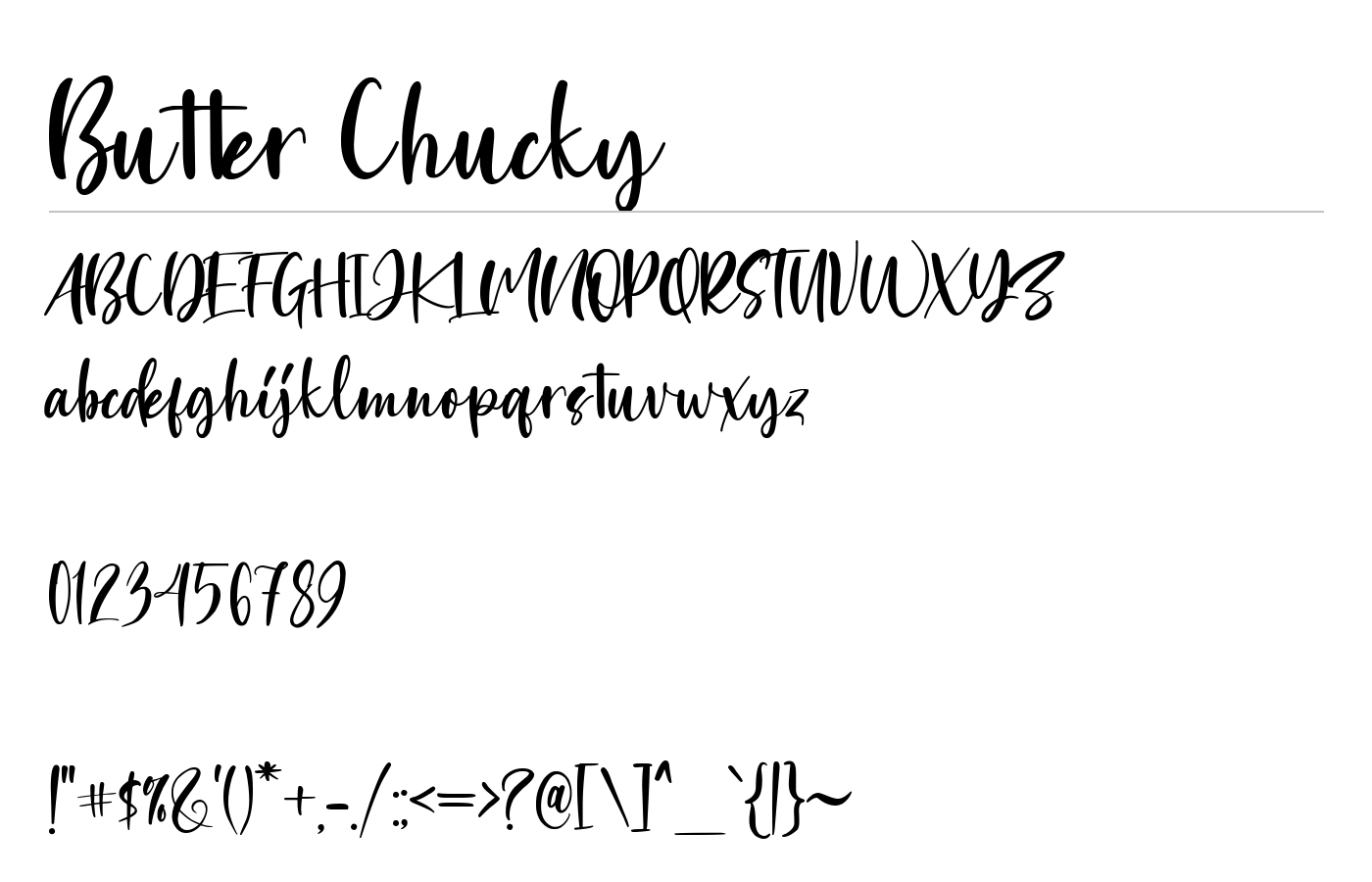
Butter Chucky is a lively and playful script font with a hand-drawn, casual feel. Its flowing, slightly irregular strokes create a friendly and approachable vibe, making it ideal for creative, informal branding, social media graphics, and invitations. This font shines in projects that want to convey warmth and personality while maintaining a modern, stylish look.
Butter Chucky Font
About Butter Chucky Font
| Font family | Butter Chucky Font |
| Designer | zamjump | Zamzami Ahmad |